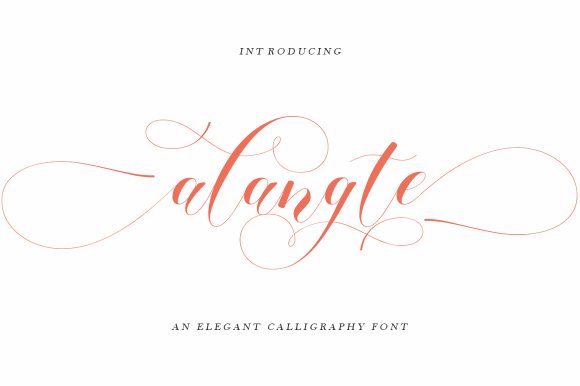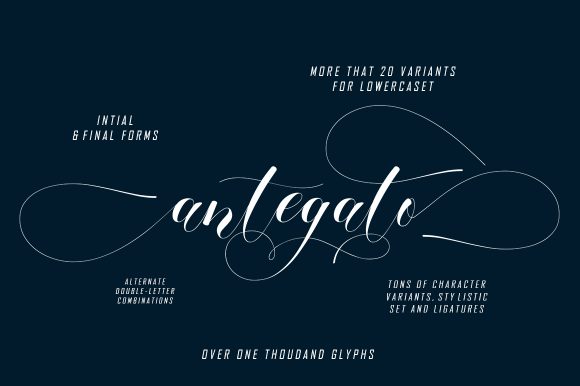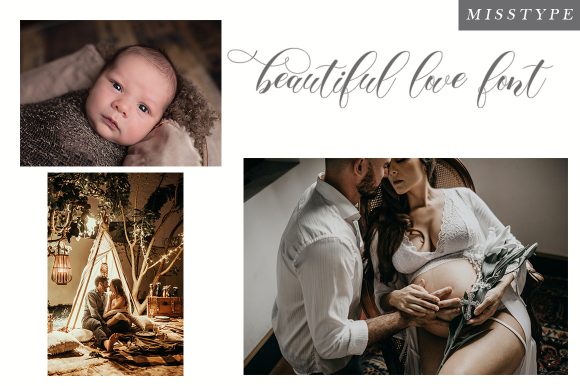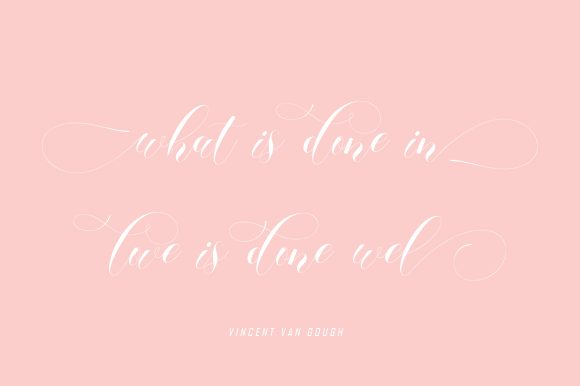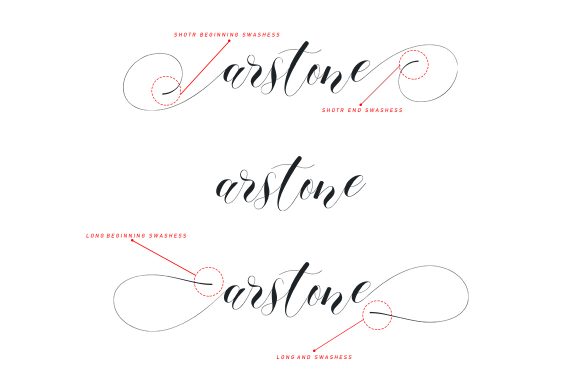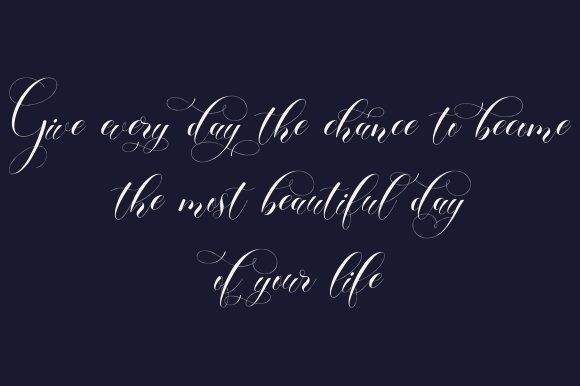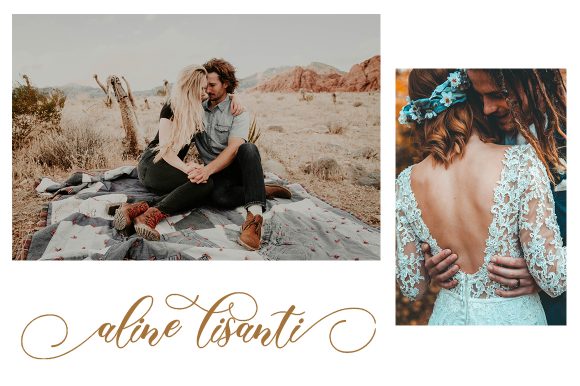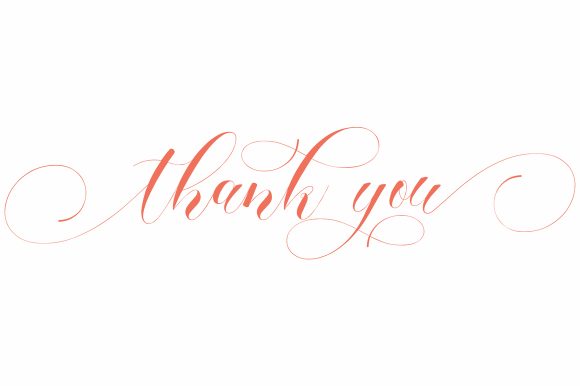
Alangte Font
About Alangte Font
Alangte is a beautiful script font designed with an incredibly modern feel. It features a varying baseline, smooth lines, gorgeous glyphs and stunning alternates.